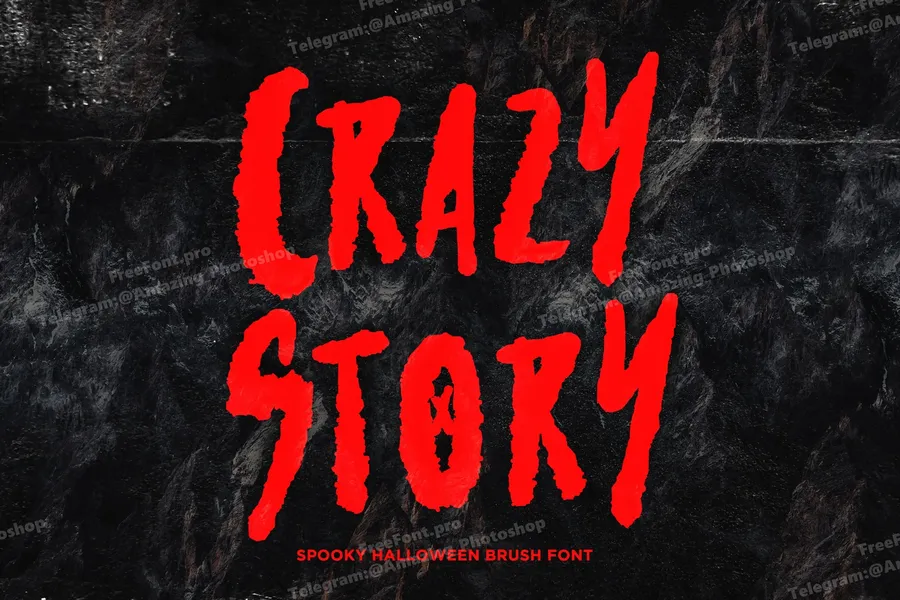
Crazy Story – Spooky Halloween Brush Font
Crazy Story – Spooky Halloween Brush Font Let Your Brand Scream with Style.
Crazy Story is a spooky corporate logo brush font that delivers boldness, fear, and personality in every stroke. Designed with a distressed dry-brush texture and raw handcrafted detail, this typeface brings your scariest ideas to life perfect for Halloween branding, haunted event posters, creepy social media headers, and of course, horror-themed corporate logo designs.
This font isn’t just for fright night. Its dynamic, chaotic brush forms also lend themselves to edgy branding, album covers, streetwear graphics, and theatrical visuals. If your project needs something bold, eerie, and unforgettable, Crazy Story is ready to haunt your headlines.
Use it to make bold, spine-chilling statements that resonate with rebellious brands, fearless creatives, and seasonal campaigns.
Uppercase Brush Characters A–Z
Textured Brush Stroke Detailing
Best For:
Horror film posters & titles
Spooky product branding
Halloween marketing campaigns
Scary social media posts
Haunted house flyers
Gritty corporate logos